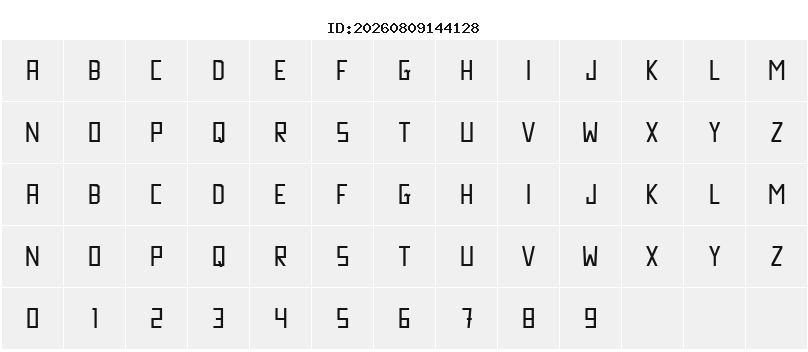
• Font Name: Pastelaria
• Full Font Name: Pastelaria
About Pastelaria.ttf
Pastelaria.ttf is a modern, elegant sans-serif font designed for ultimate readability and visual harmony. Perfect for branding, headlines, web design, and print materials.